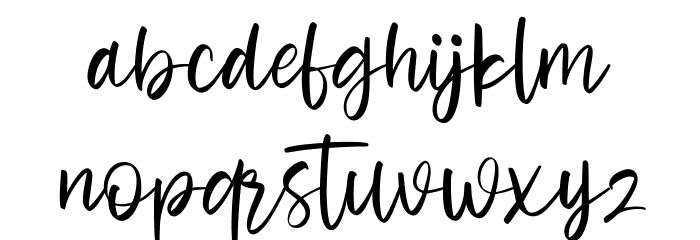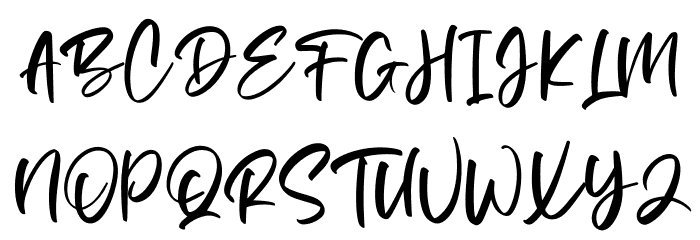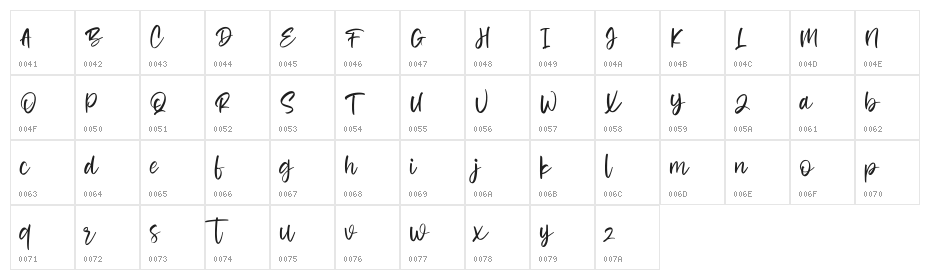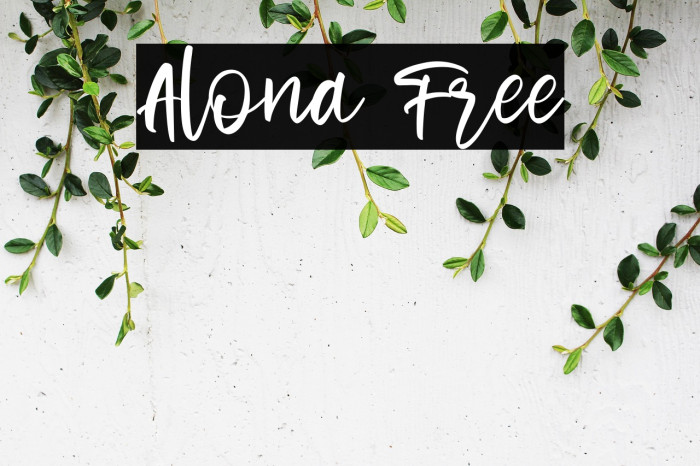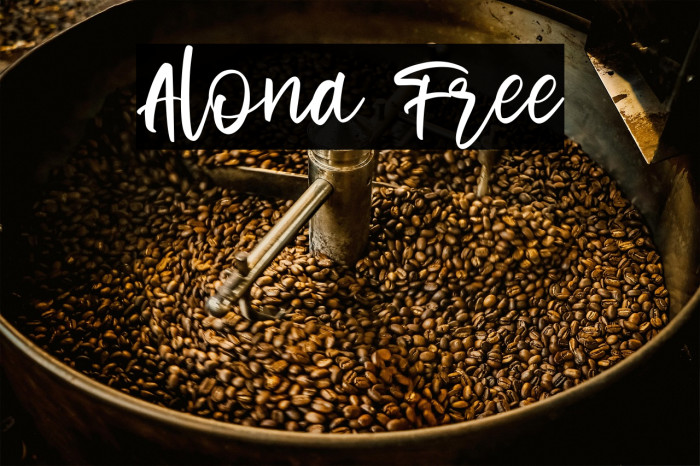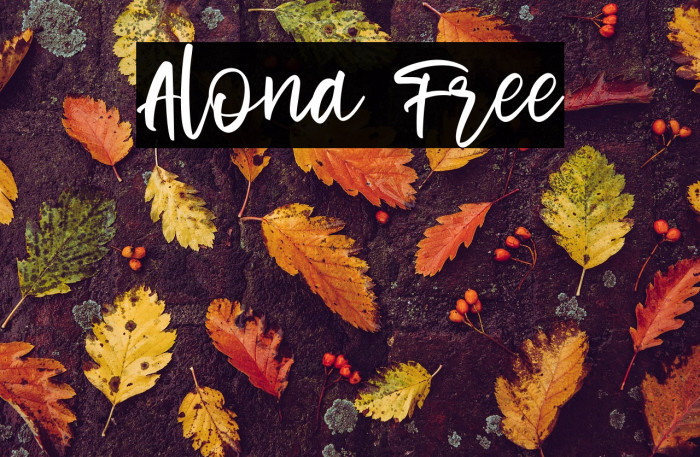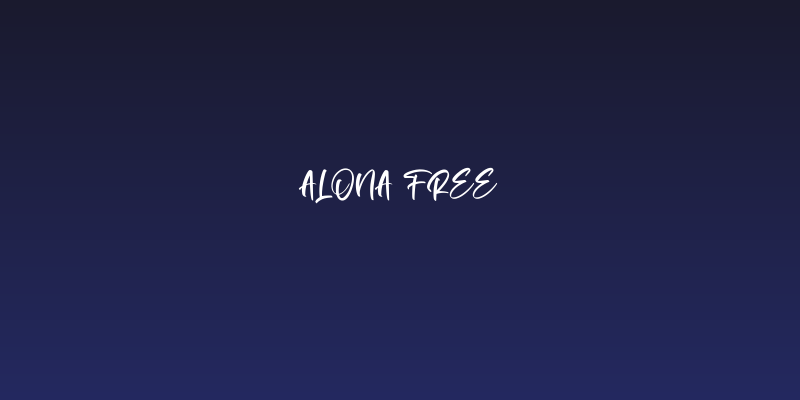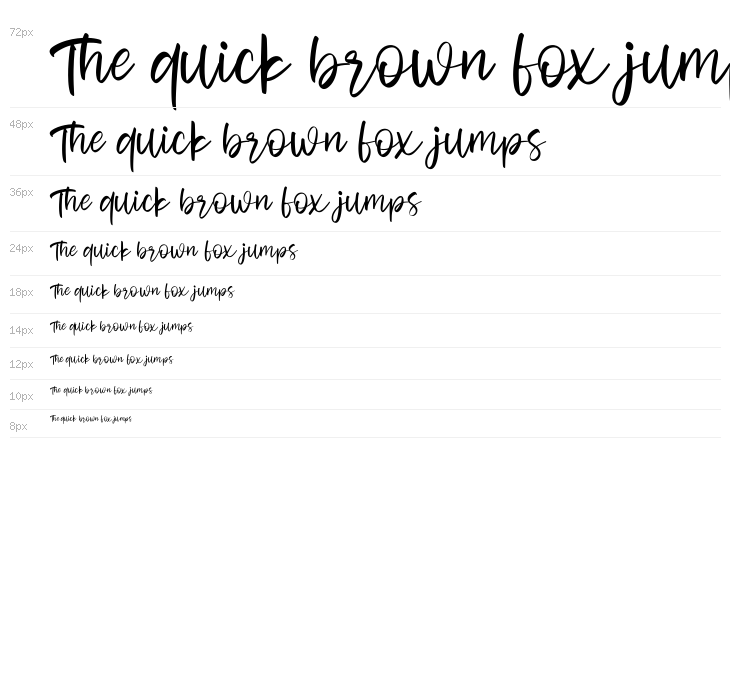
Alona Free Font
This font features a lively and expressive handwritten style, characterized by its fluid and dynamic strokes. The letters are slightly slanted, giving it a casual yet elegant appearance. The uppercase and lowercase letters maintain a consistent flow, with some letters featuring unique loops and curves that add to its charm. The numbers and special characters are crafted with the same attention to detail, ensuring a cohesive look across all glyphs. This font is perfect for projects that require a personal touch, such as invitations, greeting cards, or branding materials.
A lively and expressive handwritten font with fluid, dynamic strokes.